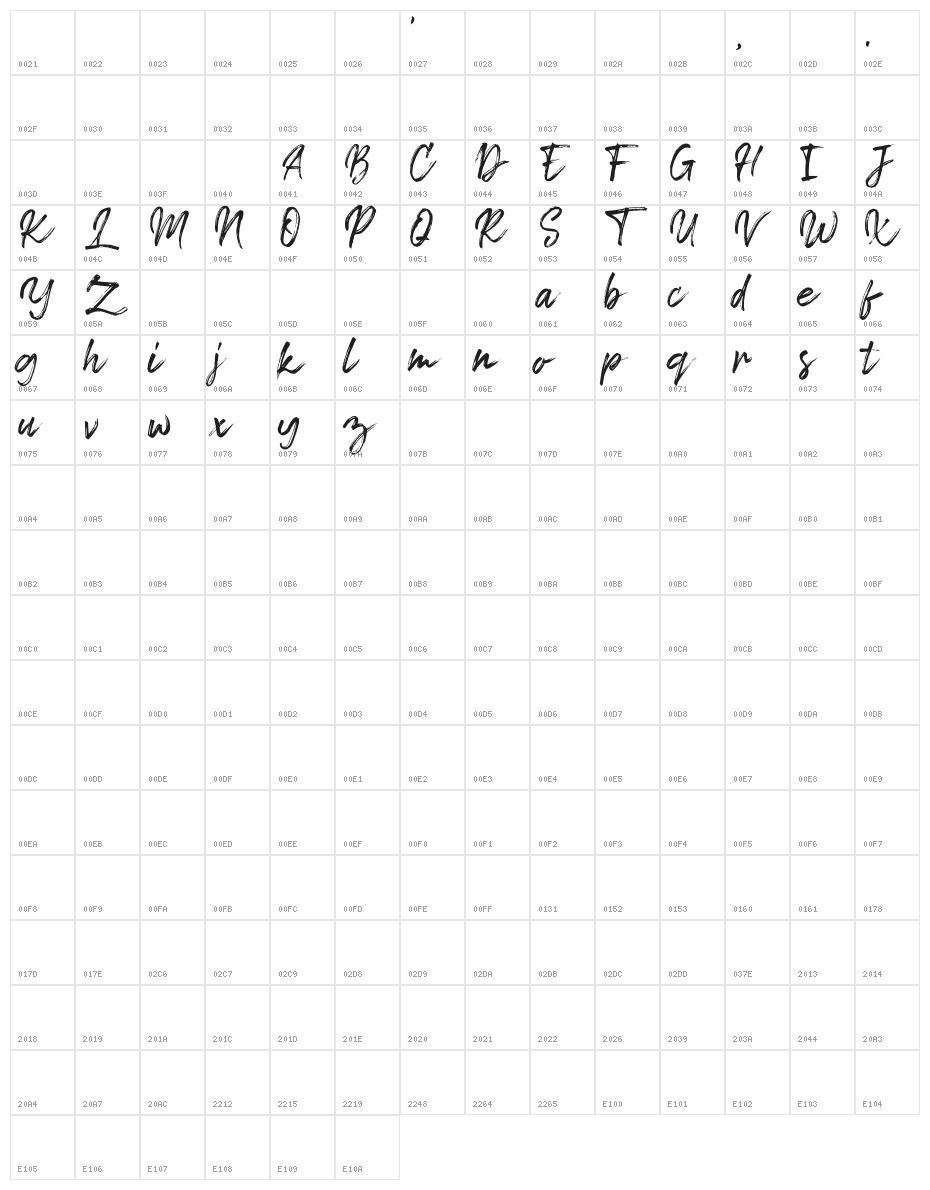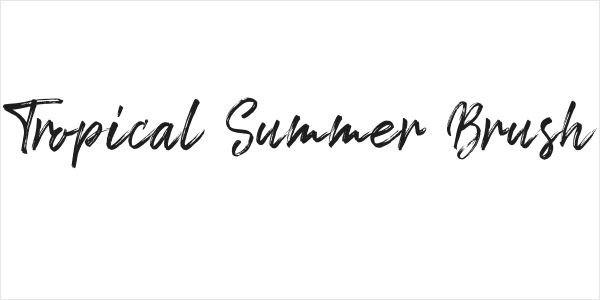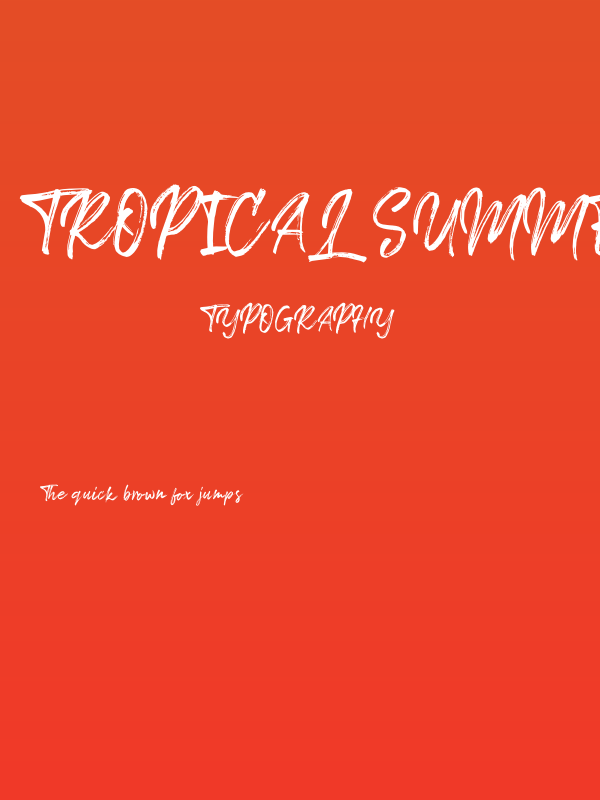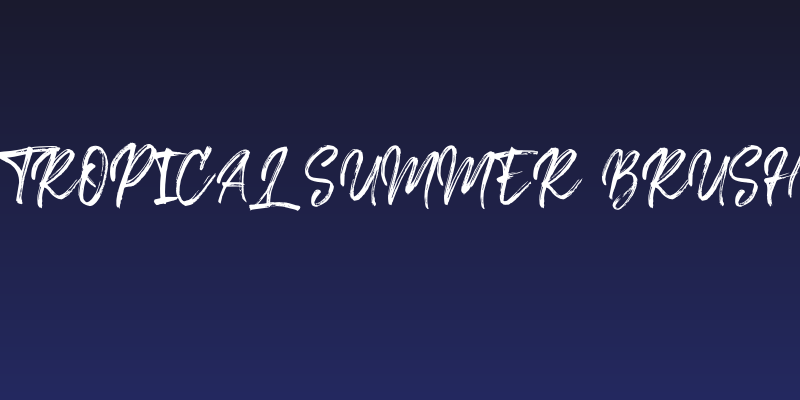
Tropical Summer Brush Font
Tropical Summer Brush Description
This font exhibits a lively and energetic brush style, characterized by its bold and expressive strokes. The letters have a dynamic flow, with varying thickness that adds a sense of movement and spontaneity. The uppercase and lowercase characters maintain a consistent style, with a slightly irregular baseline that enhances its casual and artistic appeal. The font's brush texture gives it a handcrafted feel, making it ideal for projects that require a personal touch. Its unique style is both eye-catching and versatile, suitable for a variety of creative applications.
| Proposed Projects | Ideal for branding, posters, invitations, and social media graphics. |